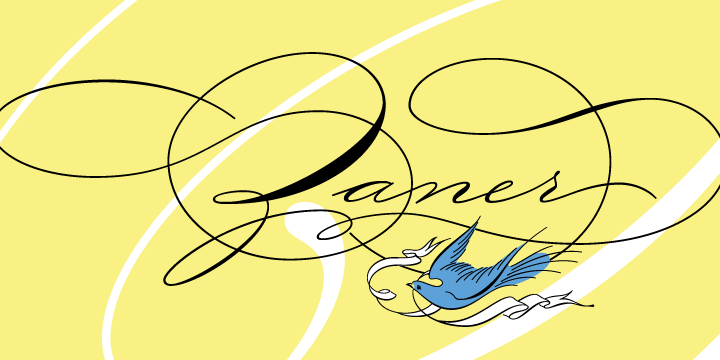
P22 Zaner
Designed by: Paul Hunt
Designed when: 2006
Design owned by: IHOF
P22 Zaner
P22 Zaner is based on ornamental penmanship as taught by Charles Paxton Zaner at his art college at the turn of the 20th century.
Zaner is perfect for wedding invitations and documents that require a touch of elegance.